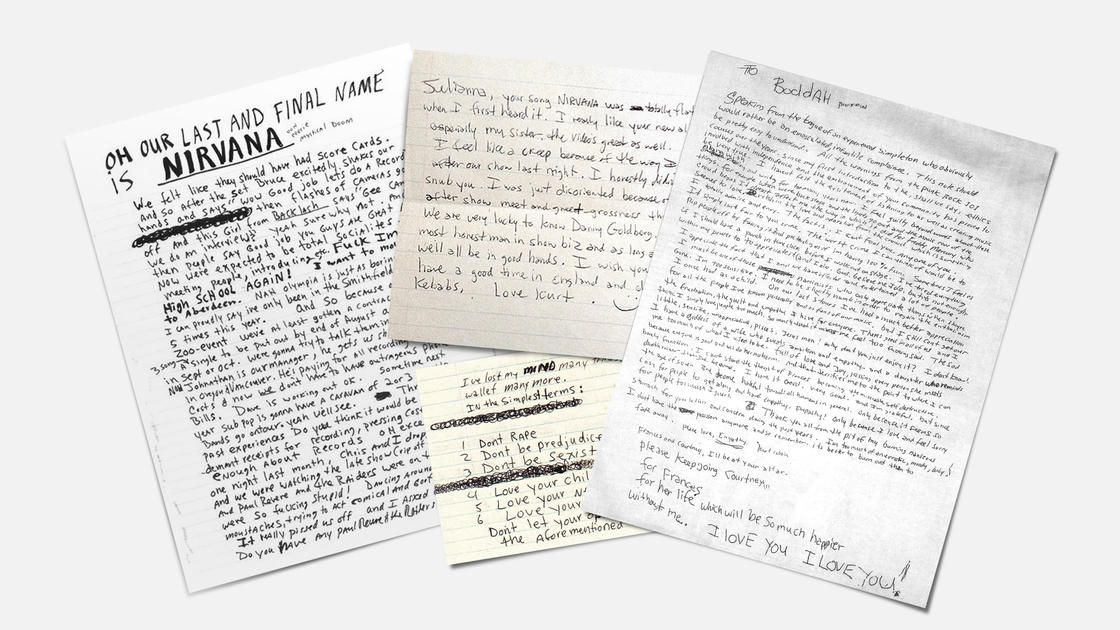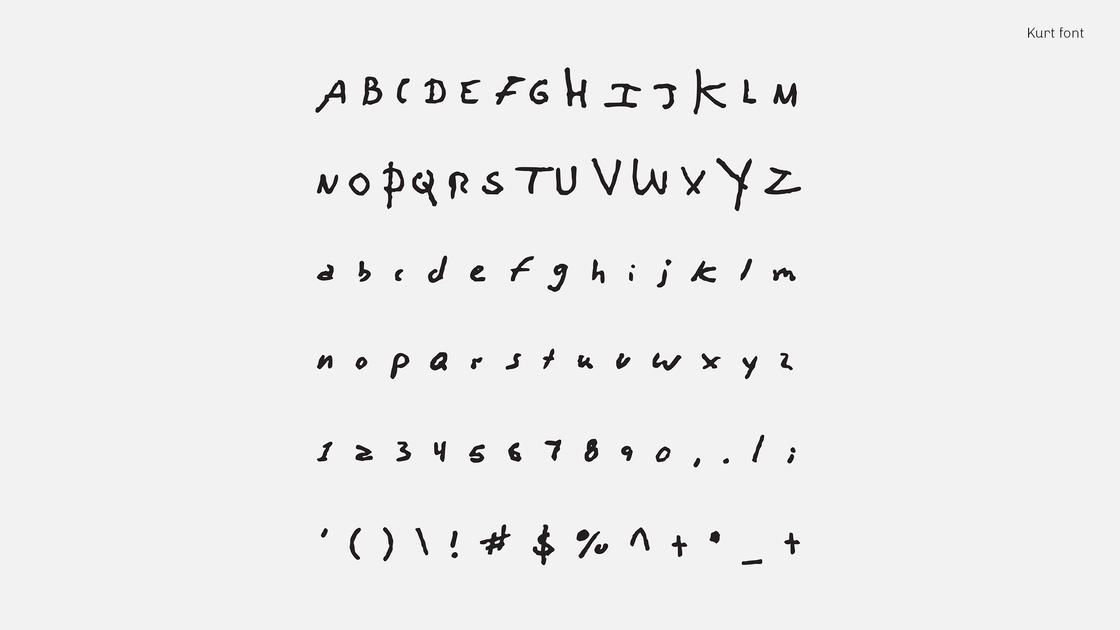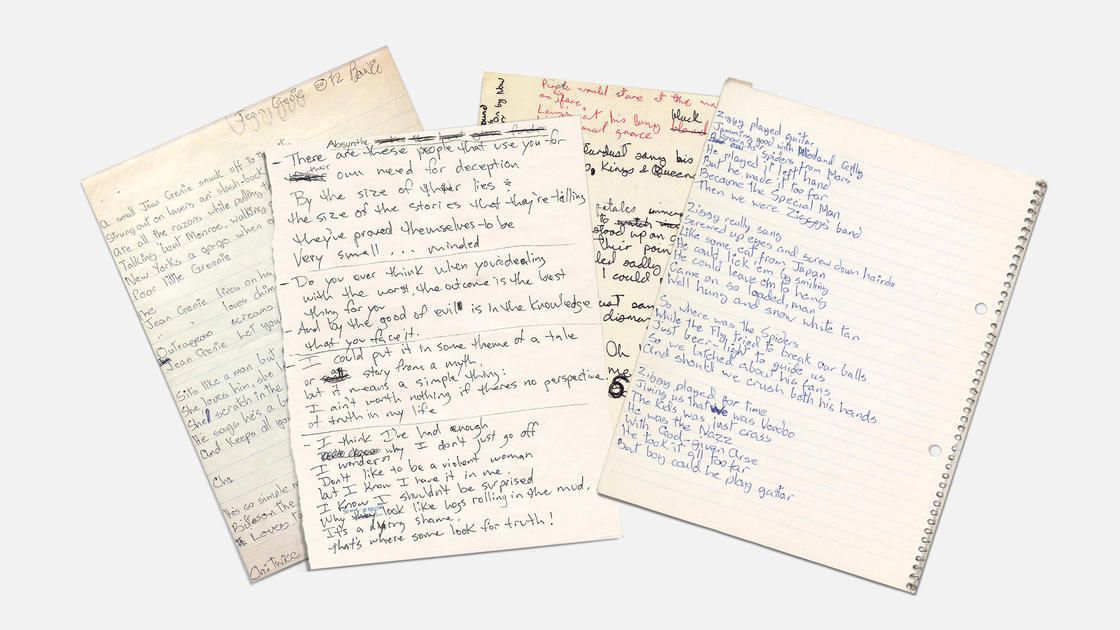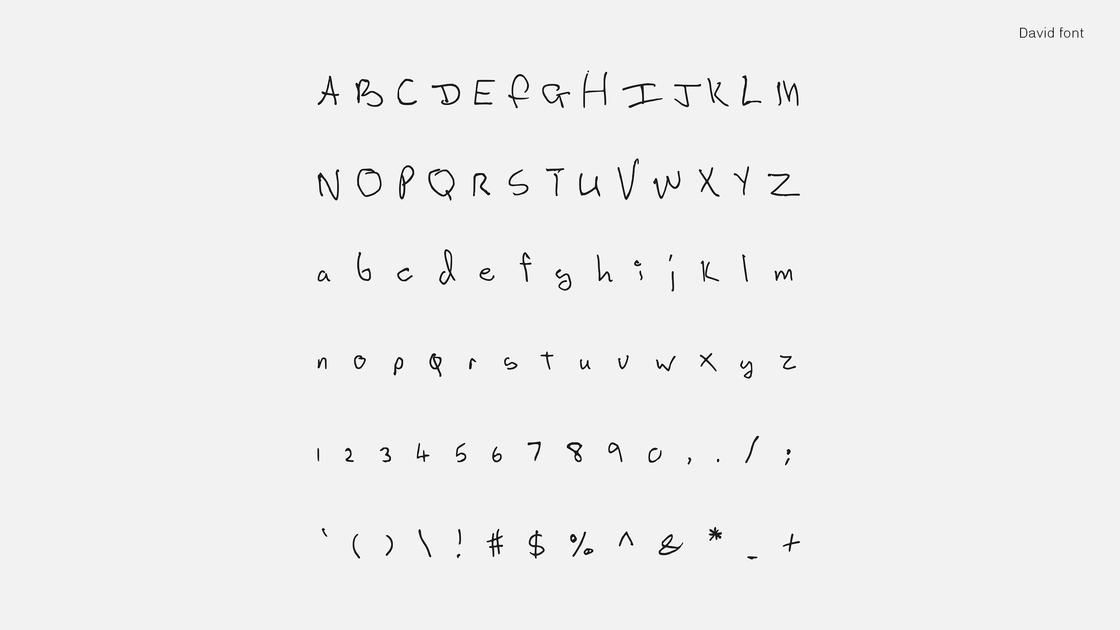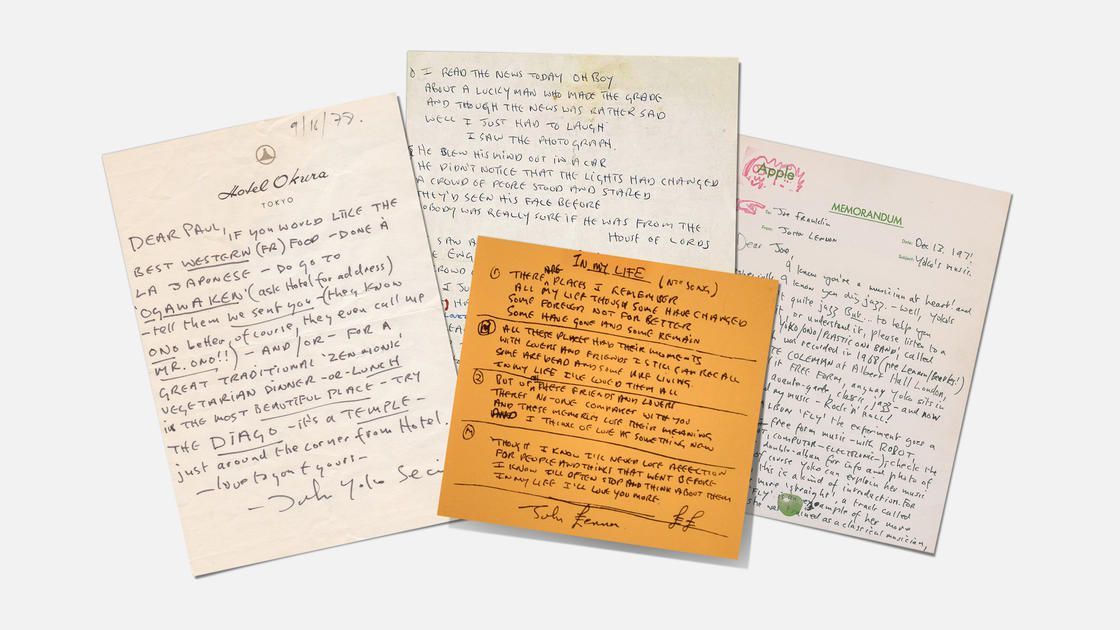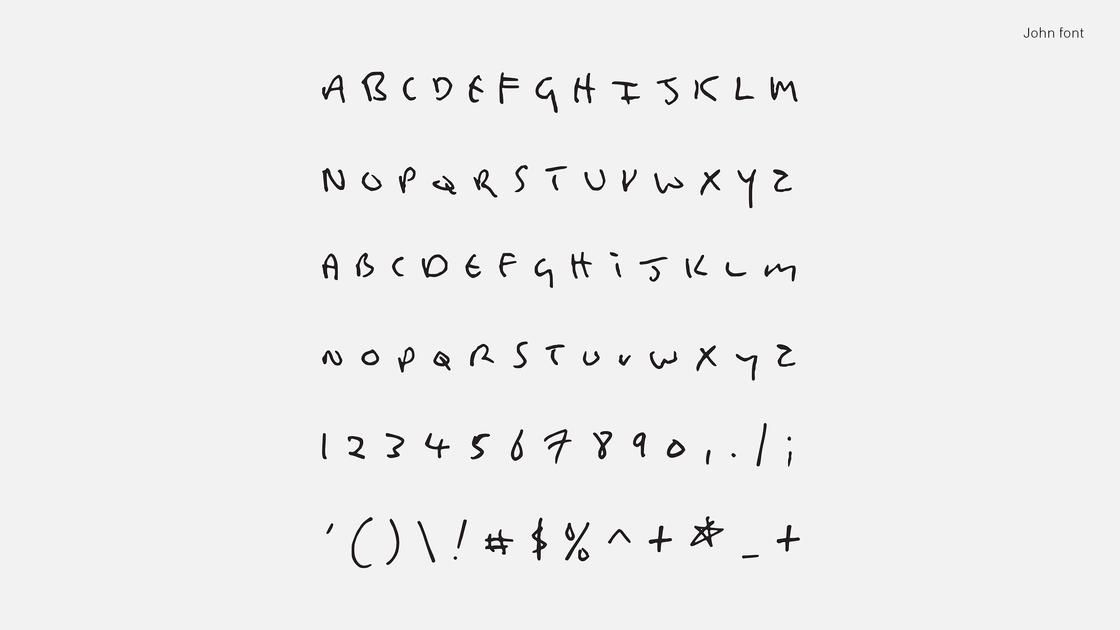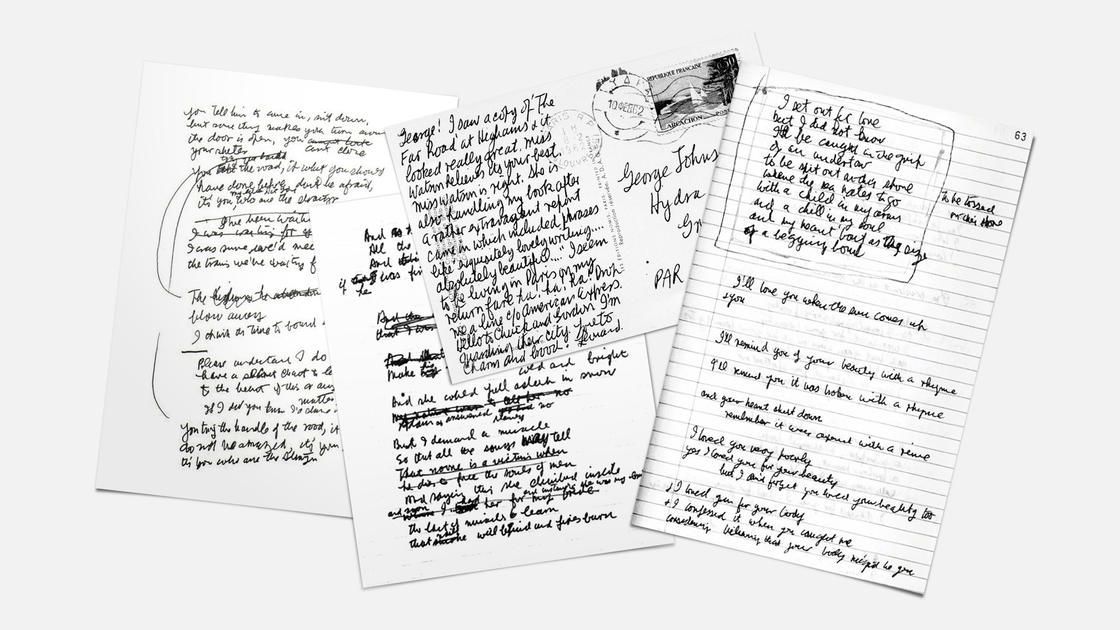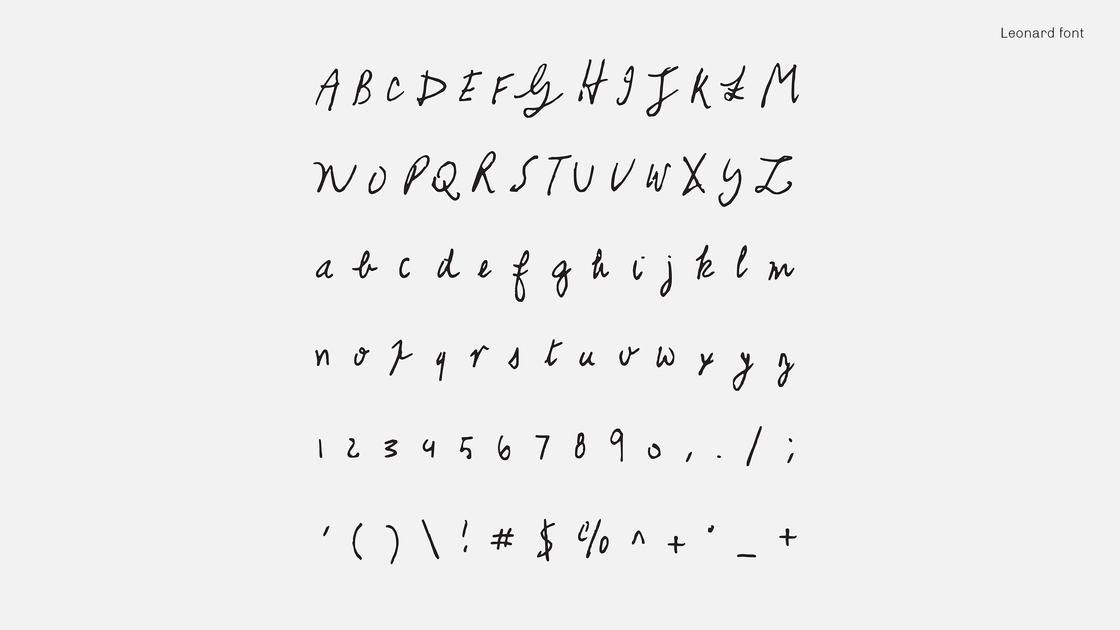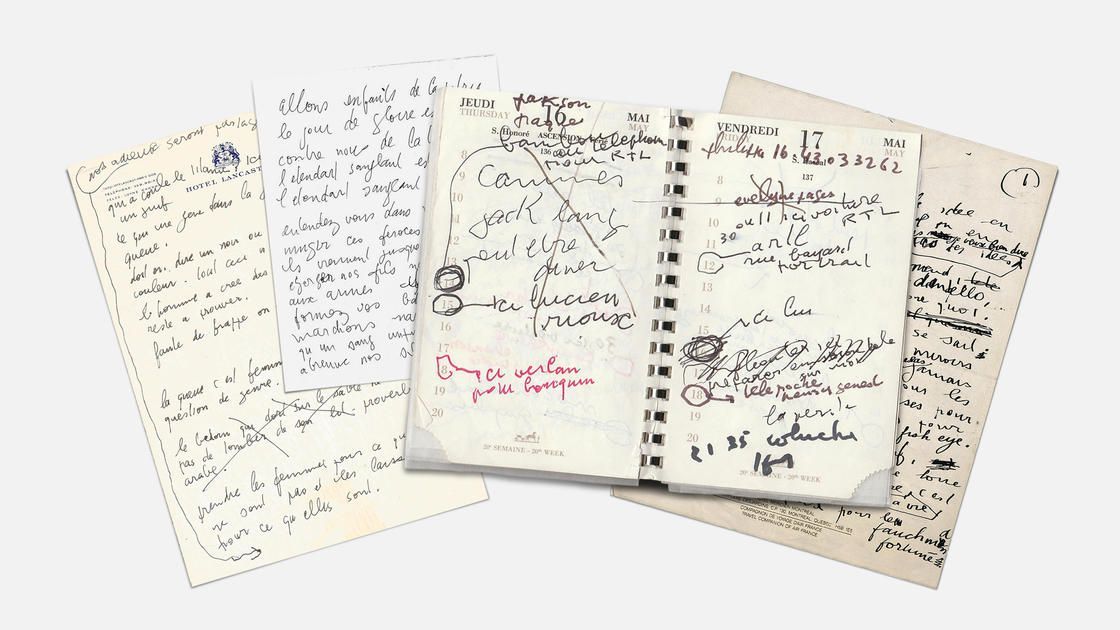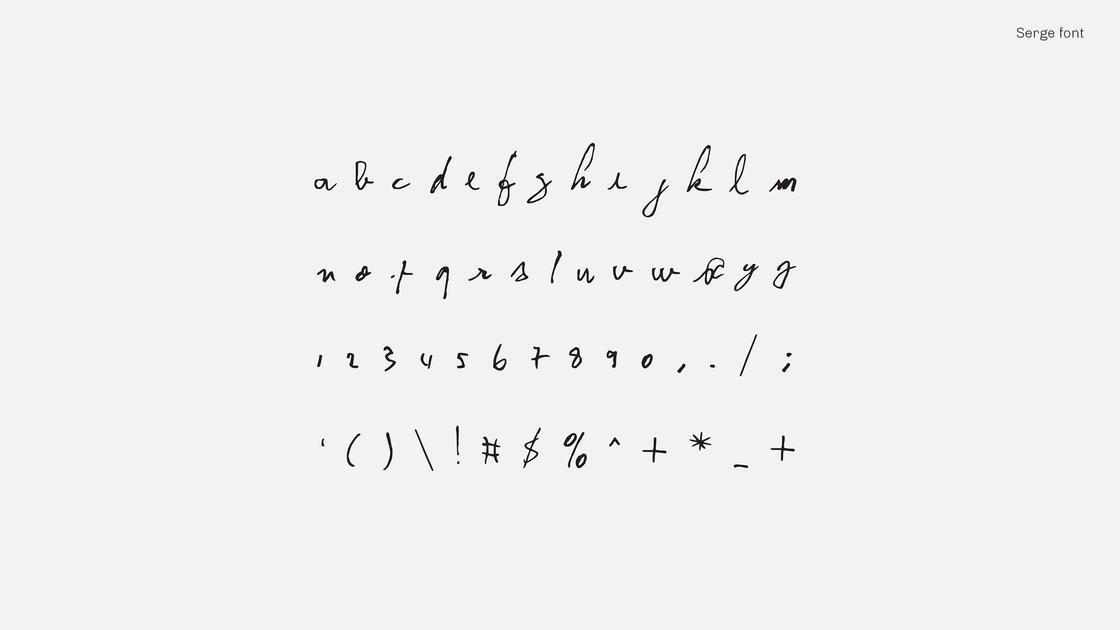
Now you can download the handwriting of Kurt Cobain, David Bowie, John Lennon and Leonard Cohen An original tribute to great music icons
It is said that calligraphy can reveal a person's character. Maybe it was born to explore the nature and the inner world of their musical myths the idea of designers Nicolas Damiens and Julien Sens to convert the calligraphy of Kurt Cobain, David Bowie, John Lennon, Serge Gainsbourg and Leonard Cohen into downloadable digital fonts.
The two did their best to capture the nuances of each character's writing, using samples of personal notes, letters, postcards, lists and even the suicide letter from the Nirvana leader.
So by observing their consonants and vowels, we find that Cobain's calligraphy is often subtle and scratchy while being shamelessly inhomogeneous with bold words, deletions and corrections. The result is "a typographic character that is at the same time honest, tortured and poetic". On the other hand, the writing of Joh Lennon and David Bowie is in stark contrast: the former is more structured and coherent, while the latter has a cleaner graphic approach.